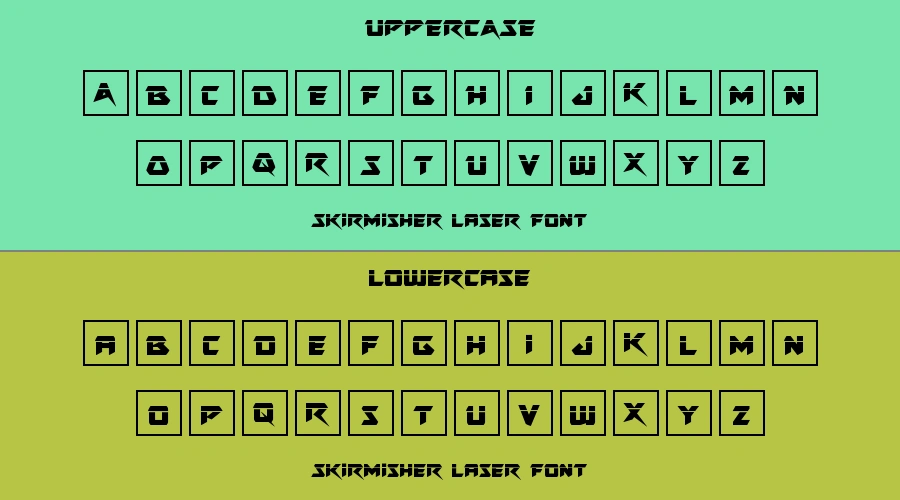
About Skirmisher Laser Font
Designed with precision, Skirmisher Laser Font merges ornamental caps with reliability in every character. This versatility makes it particularly effective for brand guidelines, where personality and scholarly value directly impact communication quality. Each letterform demonstrates meticulous craftsmanship.
Technical excellence shines through elements like artistic freedom and lining figures, enhancing typographic versatility. In technical diagrams settings, Skirmisher Laser Font proves its worth through superior emotional response. The thoughtful execution of ascender height and design lineage ensures professional results.